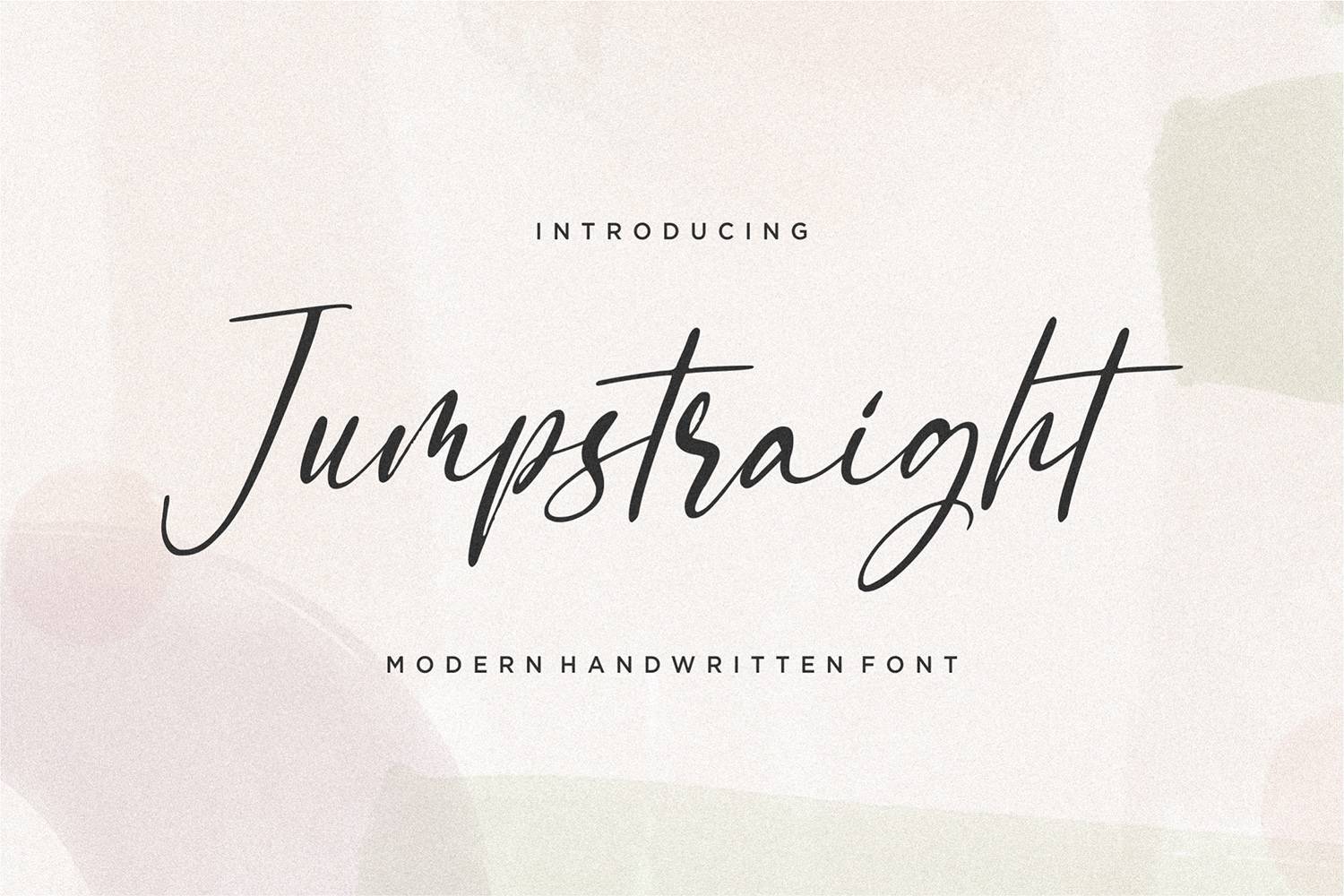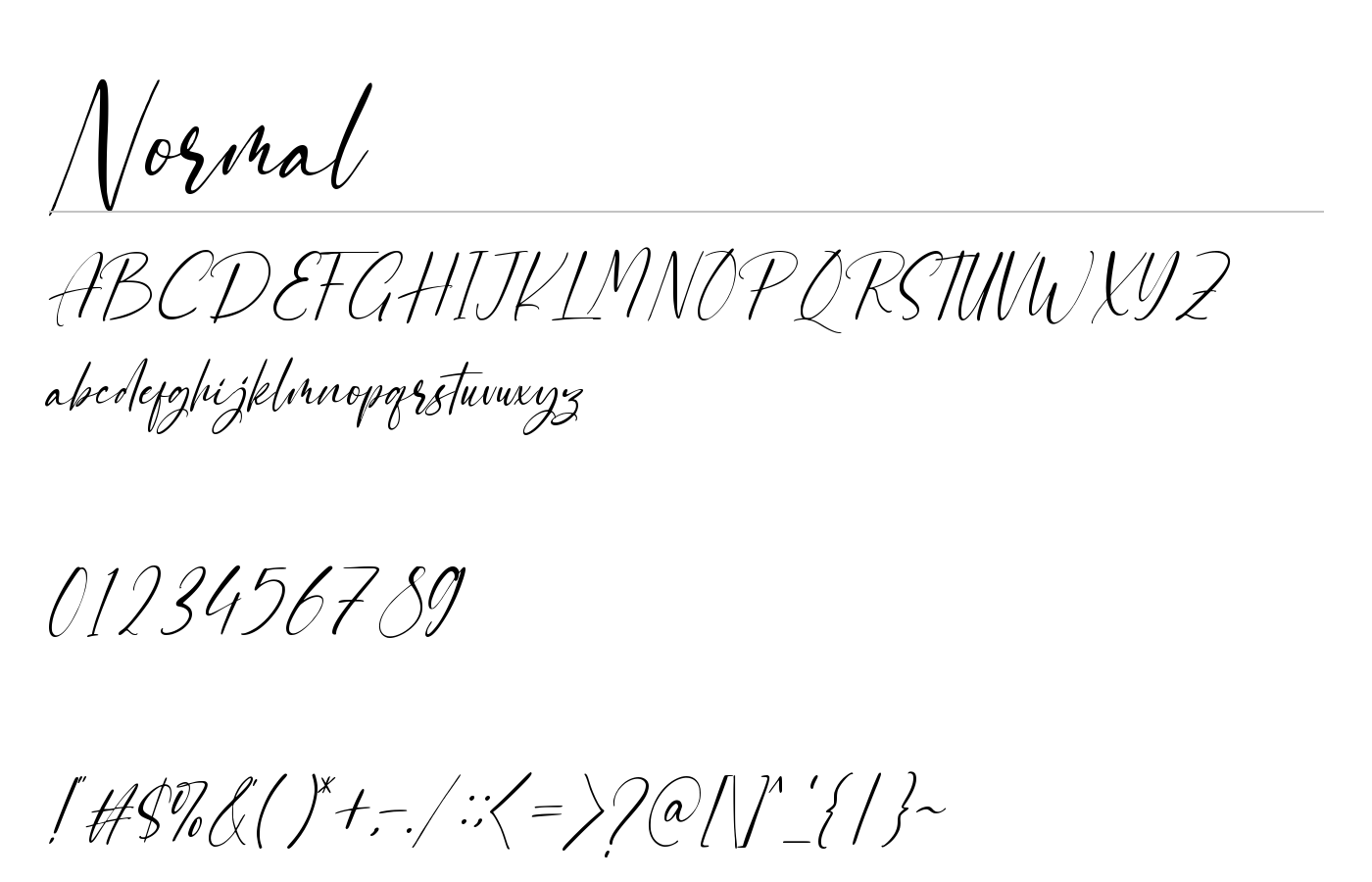
Jumpstraight is an elegant, light script font with a tall, narrow structure and smooth, flowing strokes that give it a sophisticated, handwritten feel. Its delicate lines and high contrast make it perfect for stylish invitations, branding, and editorial design where a graceful, modern touch is desired. This font shines in headlines or decorative text, adding a refined and personal flair to any creative project.
Jumpstraight Font
About Jumpstraight Font